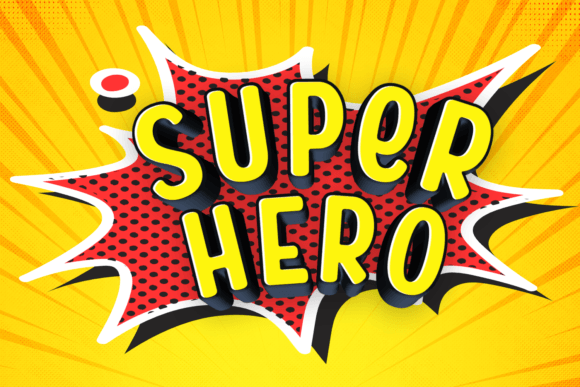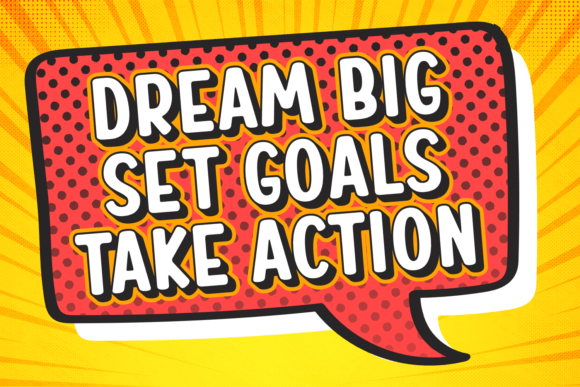
Introducing Action Font: Elevate Your Designs with Bold Elegance
In the world of design, typography plays a crucial role in conveying the message and aesthetic of a project. When it comes to making a statement, a bold and clean display font can make all the difference. This is where Action Font comes into play – a stunning typeface designed to add a touch of class and elegance to your upcoming design project.
What is Action Font?
Action Font is a modern, bold, and clean display font that is perfect for designers and crafters looking to elevate their designs. Its sleek lines, precise curves, and balanced structure make it an excellent choice for a wide range of projects, from posters and cards to invitations, product labels, books, magazines, websites, apps, and advertising materials.
Key Features of Action Font
- Bold and Clean Design: Action Font boasts a bold and clean design that is sure to grab attention. Its sleek lines and precise curves make it perfect for headlines, titles, and other display purposes.
- Elegant and Classy: With its balanced structure and elegant curves, Action Font exudes a sense of sophistication and refinement, making it perfect for designs that require a touch of luxury.
- Versatile: Action Font is an incredibly versatile typeface that can be used for a wide range of projects, from print materials to digital applications.
- Easy to Read: Despite its bold design, Action Font is easy to read, making it perfect for body text and other applications where legibility is crucial.
Use Cases for Action Font
Action Font is perfect for a wide range of projects, including:
- Posters: Use Action Font to create eye-catching posters that grab attention and convey your message with clarity.
- Cards and Invitations: Add a touch of elegance to your cards and invitations with Action Font, perfect for weddings, birthdays, and other special occasions.
- Product Labels: Use Action Font to create professional-looking product labels that stand out on store shelves.
- Books and Magazines: Action Font is perfect for headlines, titles, and other display purposes in books and magazines.
- Websites and Apps: Use Action Font to create bold and elegant digital experiences that engage and delight users.
- Advertising Materials: Action Font is perfect for creating eye-catching advertising materials, such as billboards, print ads, and social media graphics.
Why Choose Action Font?
With so many fonts available, why choose Action Font? Here are just a few reasons:
- Unique and Memorable: Action Font is a unique and memorable typeface that will help your designs stand out from the crowd.
- High-Quality Design: Action Font is designed to the highest standards, ensuring that your designs look professional and polished.
In conclusion, Action Font is a bold and clean display font that is perfect for designers and crafters looking to elevate their designs. With its elegant and classy design, versatility, and ease of use, Action Font is an excellent choice for a wide range of projects. Whether you’re working on a poster, card, invitation, product label, book, magazine, website, app, or advertising material, Action Font is sure to add a touch of class and elegance to your design.